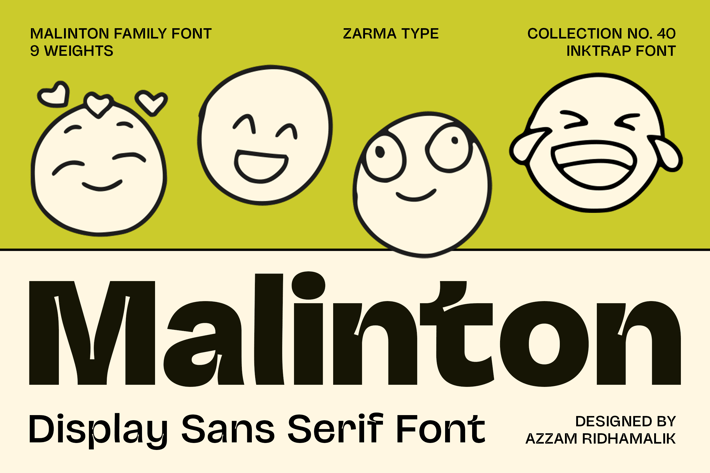
Malinton - Modern Sans Font Family
Modern Sans Font Family Malinton is a versatile sans serif family that perfectly balances professional sophistication with funky playful charm. With 9 carefully crafted weights from Thin to Black, plus variable options, it's designed to command attention while maintaining readability. Features extensive language support, and unique ink traps that add character to every design. Perfect for brands that want to stand out while staying professional - from corporate communications to creative projects that need that extra spark of personality.